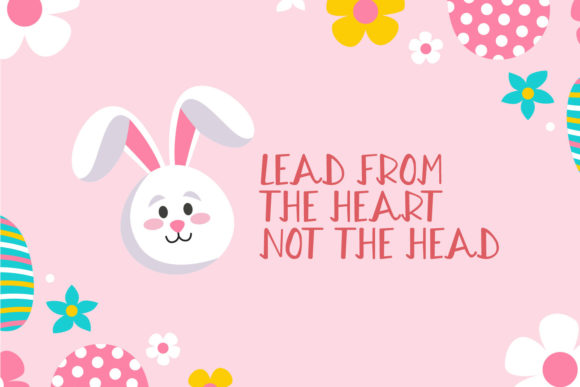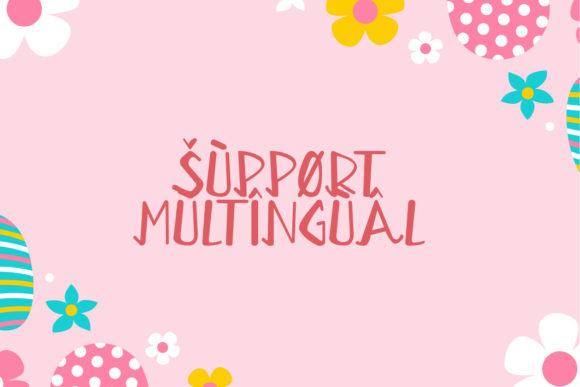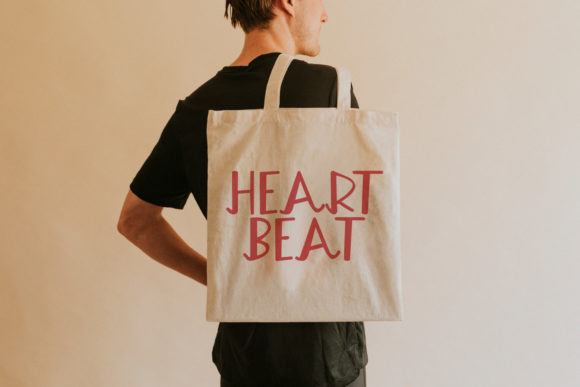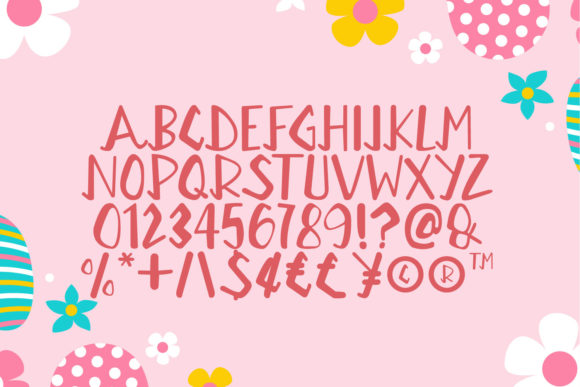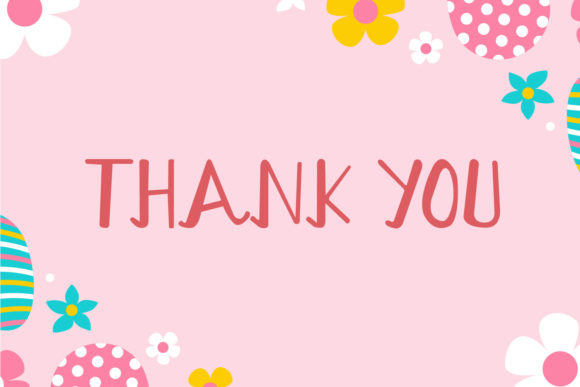
Brightening Up Your Design with Bunny Kids Font
Do you remember the joy of scribbling with crayons on a blank sheet of paper as a kid? The freedom of expression, the excitement of creating something new and unique, and the satisfaction of seeing your artwork come to life? As designers, we often strive to recapture that same sense of playfulness and creativity in our work, but it can be challenging to find the right tools to bring our ideas to life.
Enter the Bunny Kids Font, a delightful display font that embodies the spirit of childhood playfulness and authenticity. Designed specifically for kids’ activities and school projects, this font is the perfect choice for anyone looking to add a touch of whimsy and fun to their designs.
For designers, the Bunny Kids Font is a valuable addition to their toolkit, offering a unique and engaging way to connect with young audiences and bring their creative visions to life. Whether you’re working on a children’s book, a educational app, or a marketing campaign for a family-friendly brand, this font is sure to bring a smile to your face and a touch of magic to your design.
- Unique Characteristics: The Bunny Kids Font features a playful, whimsical design with rounded edges, making it perfect for children’s books, educational materials, and fun projects.
Bunny Kids Font Review
I recently had the chance to work with the Bunny Kids Font and I must say, it’s a delightful addition to any design project.
- ✨ Whimsical and playful feel that’s perfect for kids’ projects or creative branding.
- ✨ Unique and quirky letterforms that add a touch of personality to your design.
- ✨ Good legibility and readability, even at smaller font sizes.
- ⚠️ Limited character set, which may not be suitable for long blocks of text.
- ⚠️ May not be ideal for formal or professional branding due to its playful nature.
- ⚠️ Some letterforms may be challenging to customize or modify.
The Bunny Kids Font is a fun and engaging font that’s perfect for projects that require a touch of whimsy and personality. While it may have some limitations, it’s a great addition to any designer’s toolkit. With careful consideration of its strengths and weaknesses, the Bunny Kids Font can help elevate your design projects and leave a lasting impression.
Getting the Most Out of the Bunny Kids Font
For the best results, use the Bunny Kids Font in conjunction with colorful illustrations and playful graphics.
Experiment with different font sizes and styles to add visual interest to your design.
The Bunny Kids Font is perfect for:
Children’s book covers and illustrations
Party invitations and decorations
Education and learning materials
Any project that requires a playful and whimsical touch
Alternatives to Bunny Kids Font
Lato is a clean and modern sans-serif font, perfect for creating a friendly and approachable atmosphere. It is highly legible and suitable for body text and headings alike. Compared to Bunny Kids Font, Lato has a more mature and sophisticated look, making it ideal for a wide range of applications, from branding to publishing.
Playfair Display is a luxurious and elegant script font, ideal for creating a high-end and sophisticated atmosphere. It is perfect for titles, headings, and any text that requires a touch of luxury. Compared to Bunny Kids Font, Playfair Display has a more refined and sophisticated look, making it suitable for high-end branding and advertising.
Great Vibes is a fun and playful script font, perfect for creating a youthful and energetic atmosphere. It is ideal for branding, advertising, and any text that requires a touch of fun and personality. Compared to Bunny Kids Font, Great Vibes has a more carefree and spontaneous look, making it suitable for applications that require a lighthearted and approachable tone.
What is the recommended font size and line height for using the Bunny Kids Font?
The recommended font size for the Bunny Kids Font is between 12pt and 18pt, depending on the desired readability and visual impact. For optimal readability, use a line height of at least 1.2 times the font size. Experiment with different font sizes and line heights to achieve the desired visual effect for your project.